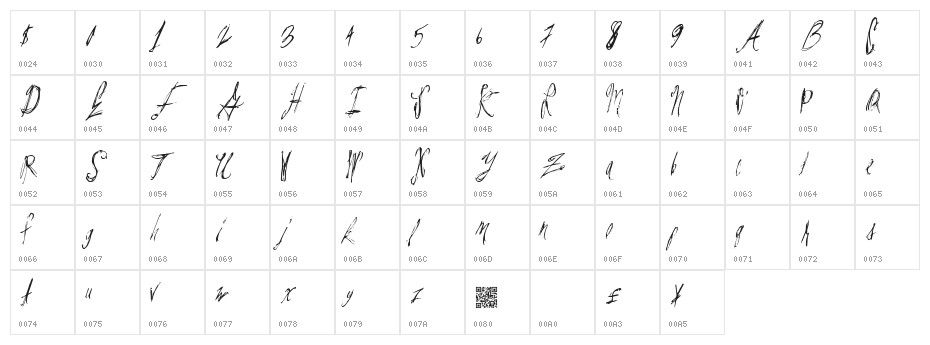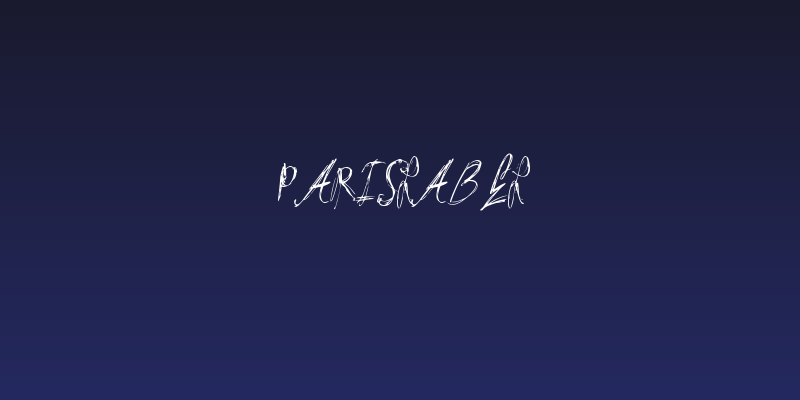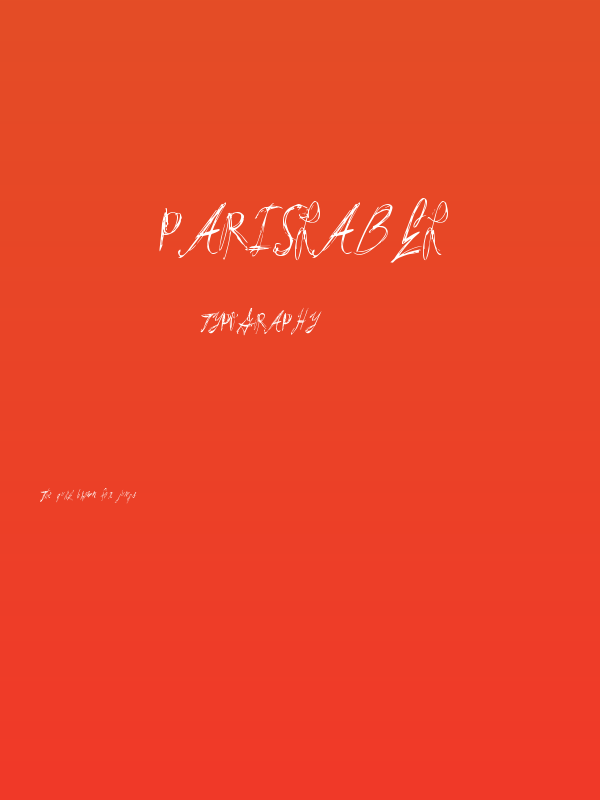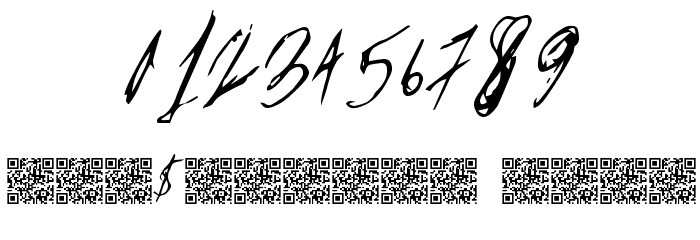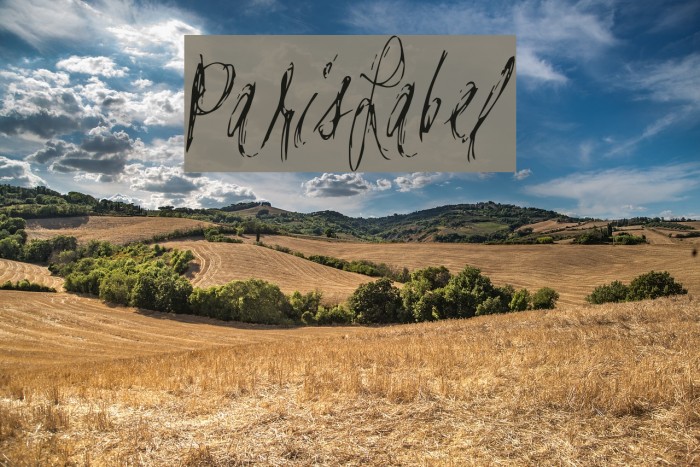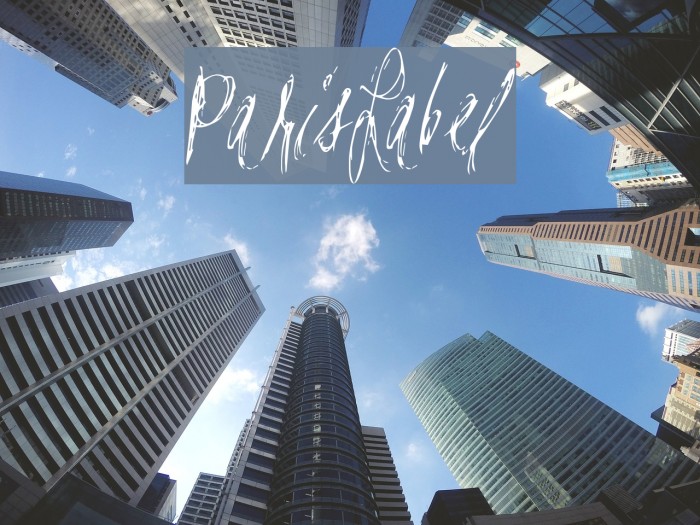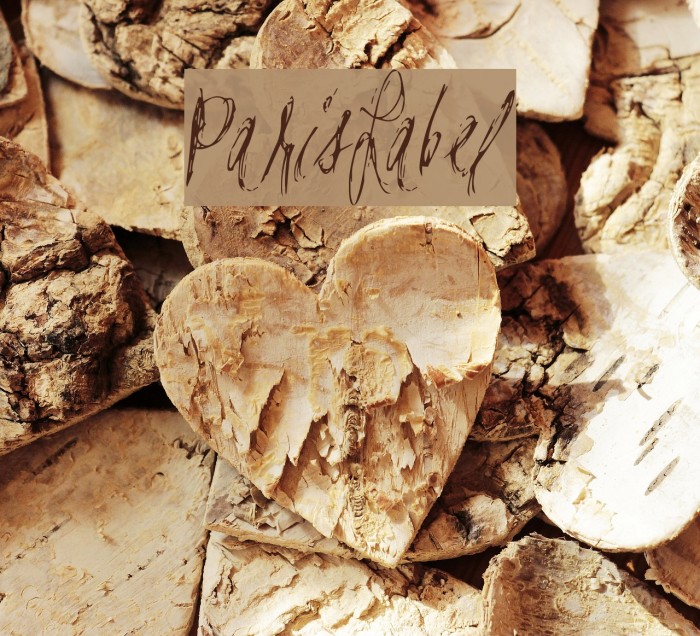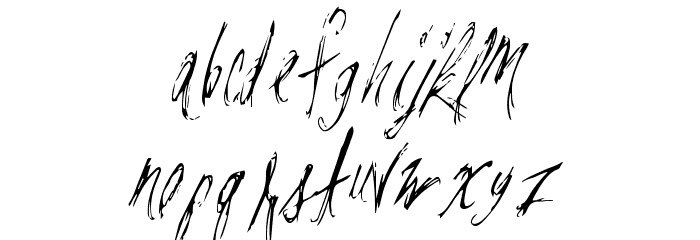
ParisLabel Font
ParisLabel Description
This font exhibits a highly expressive and artistic style, characterized by its dynamic and fluid strokes. The letters appear to be hand-drawn with a sense of spontaneity and energy, giving it a unique and personal touch. The uppercase and lowercase letters are consistent in their artistic flair, with varying stroke widths that create a sense of movement and rhythm. The numbers and special characters maintain this style, ensuring a cohesive look across all elements. The overall appearance is both chaotic and elegant, making it stand out as a bold statement piece.
| Use Case | Logos, Artistic projects, Headlines |
| Proposed Projects | Ideal for creative projects such as album covers, artistic posters, and unique branding materials. |